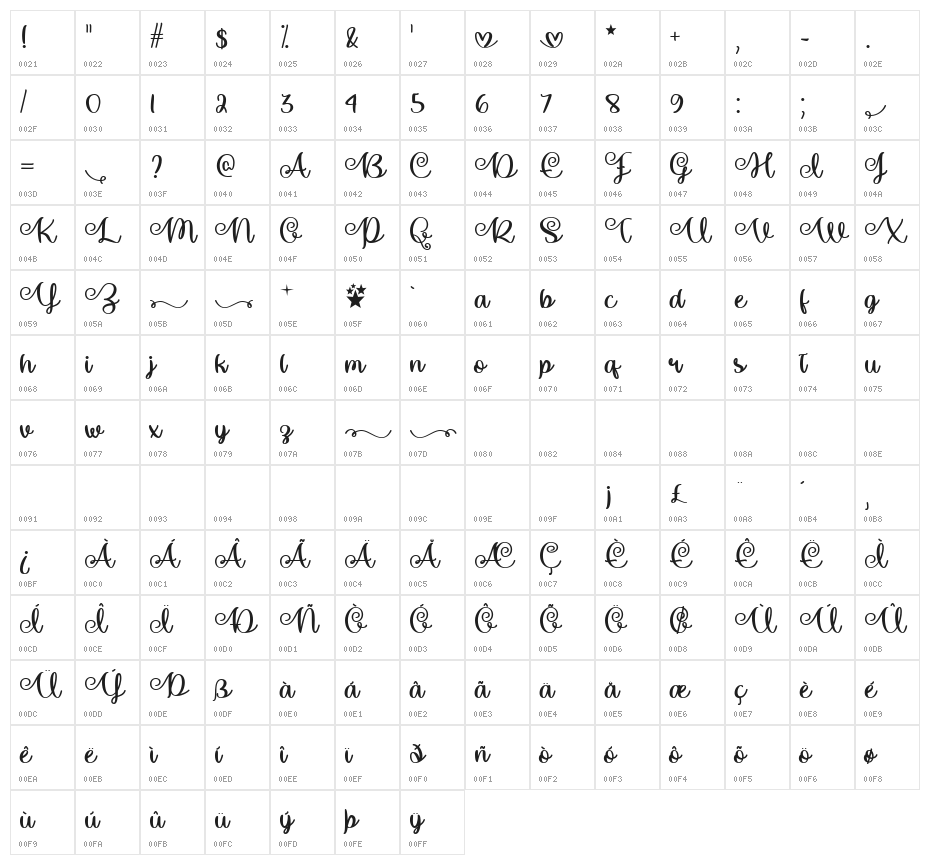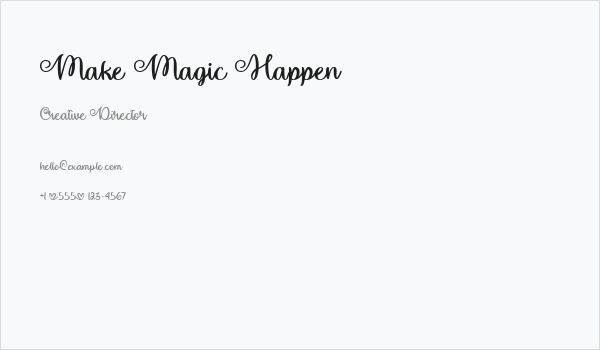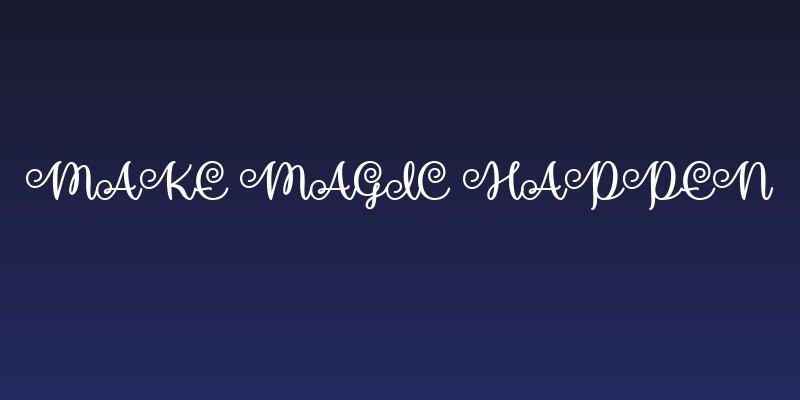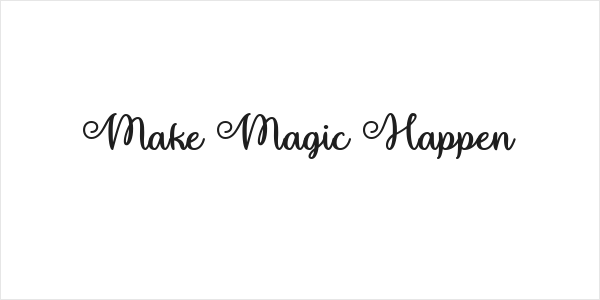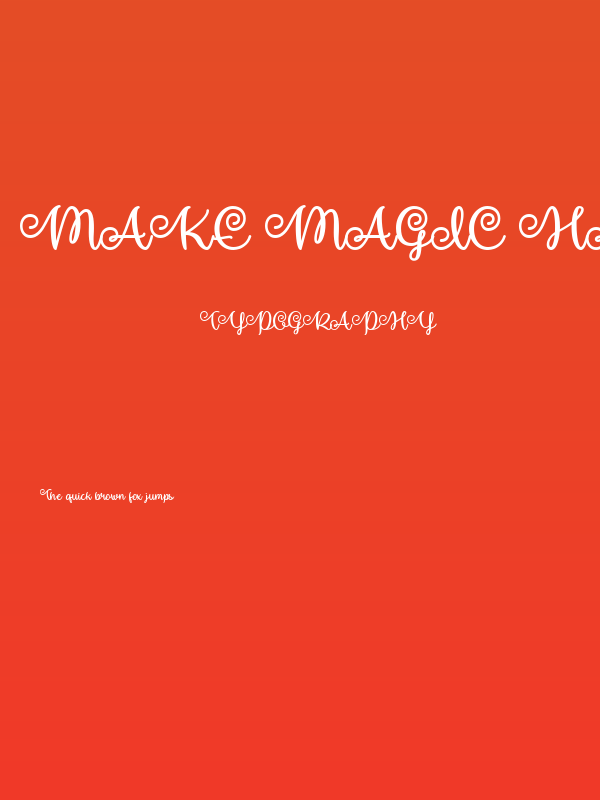
Make Magic Happen Font
Make Magic Happen Description
This font features a playful and whimsical script style, characterized by its flowing, cursive letters with a consistent stroke width. The uppercase letters are elegantly looped, while the lowercase letters maintain a smooth and rounded appearance. The numbers and special characters complement the overall style with their cohesive design. This font exudes a sense of fun and creativity, making it suitable for projects that require a touch of personality and flair.
| Proposed Projects | Ideal for greeting cards, invitations, playful branding, and creative projects. |